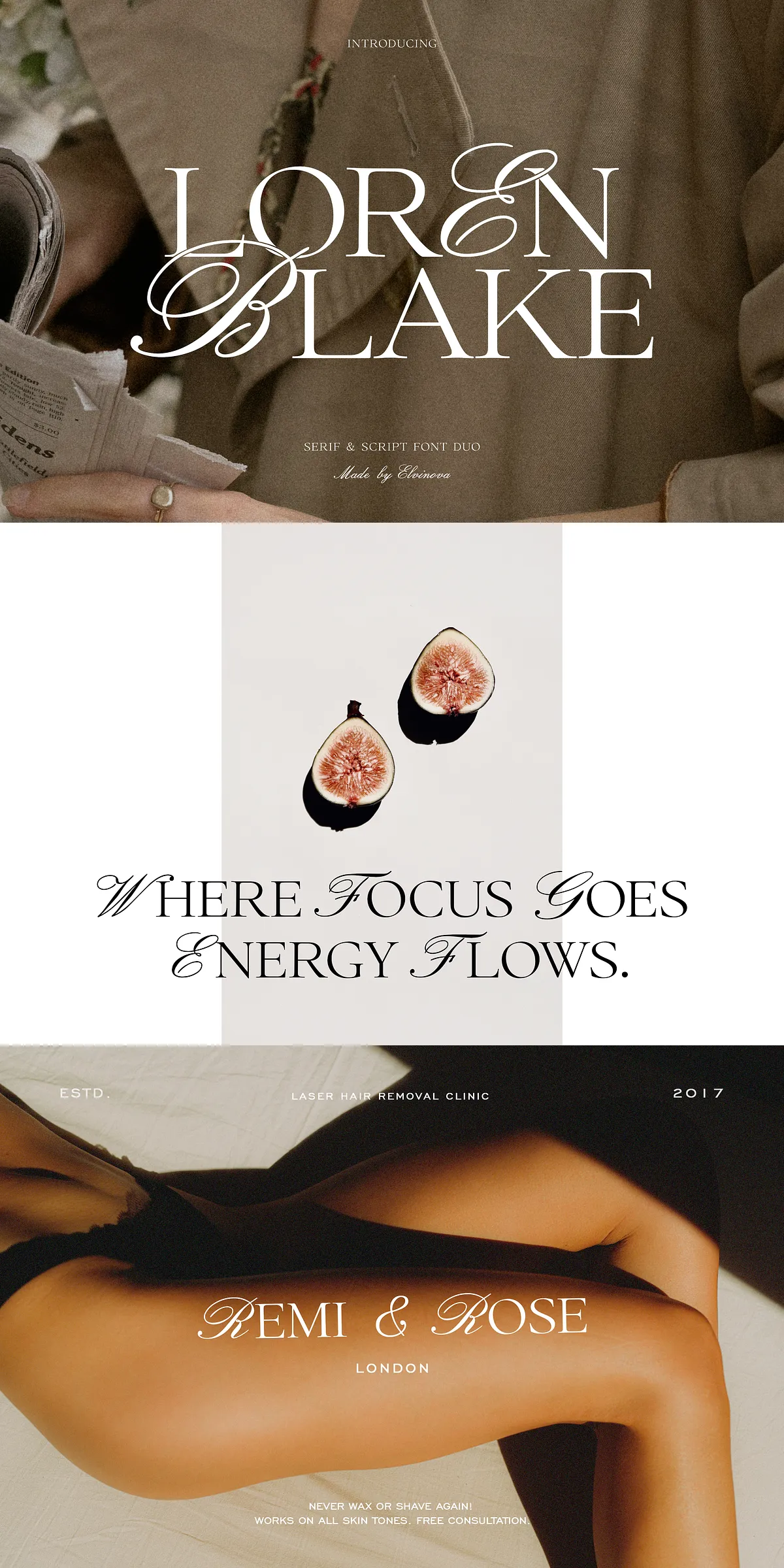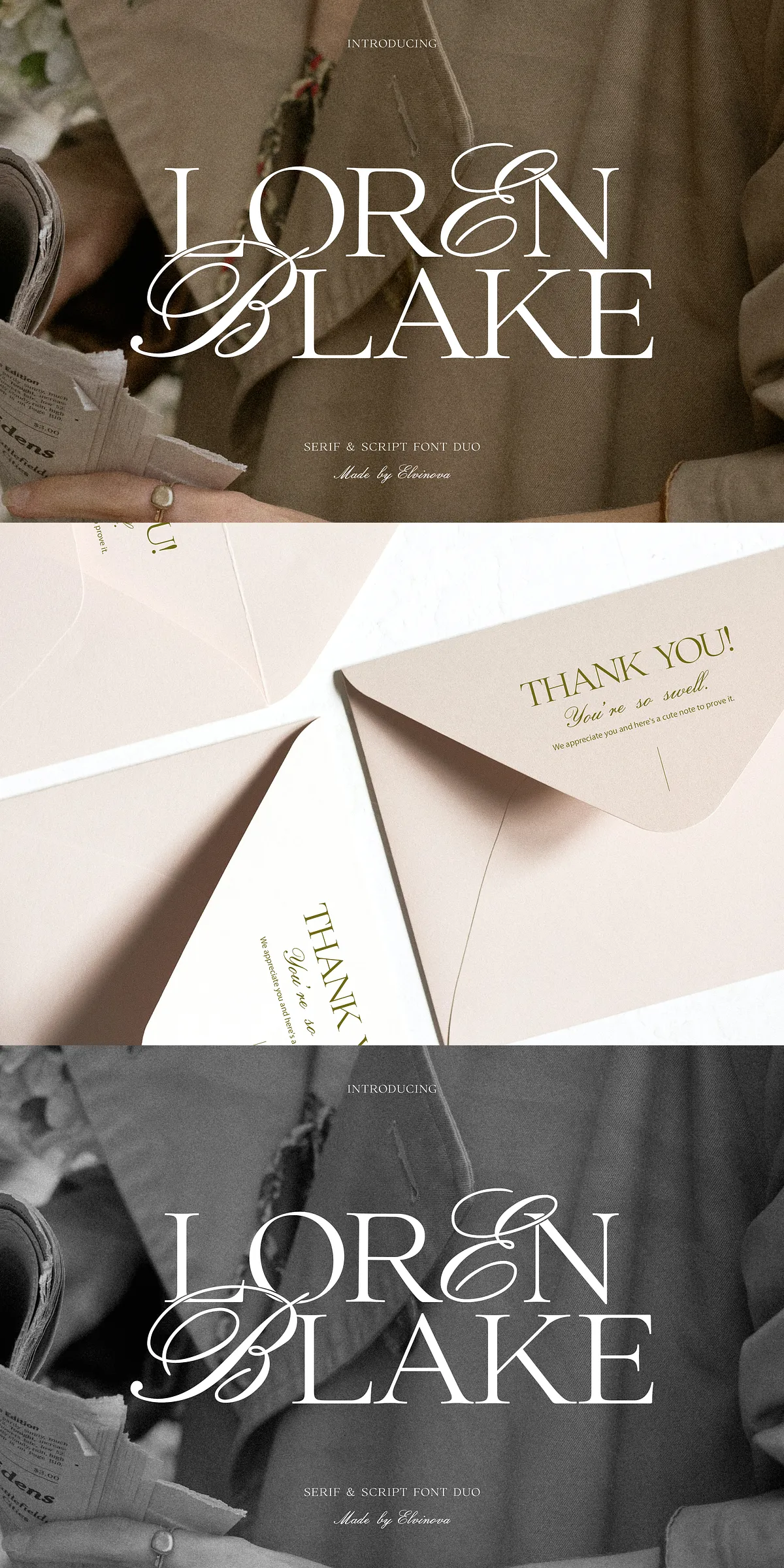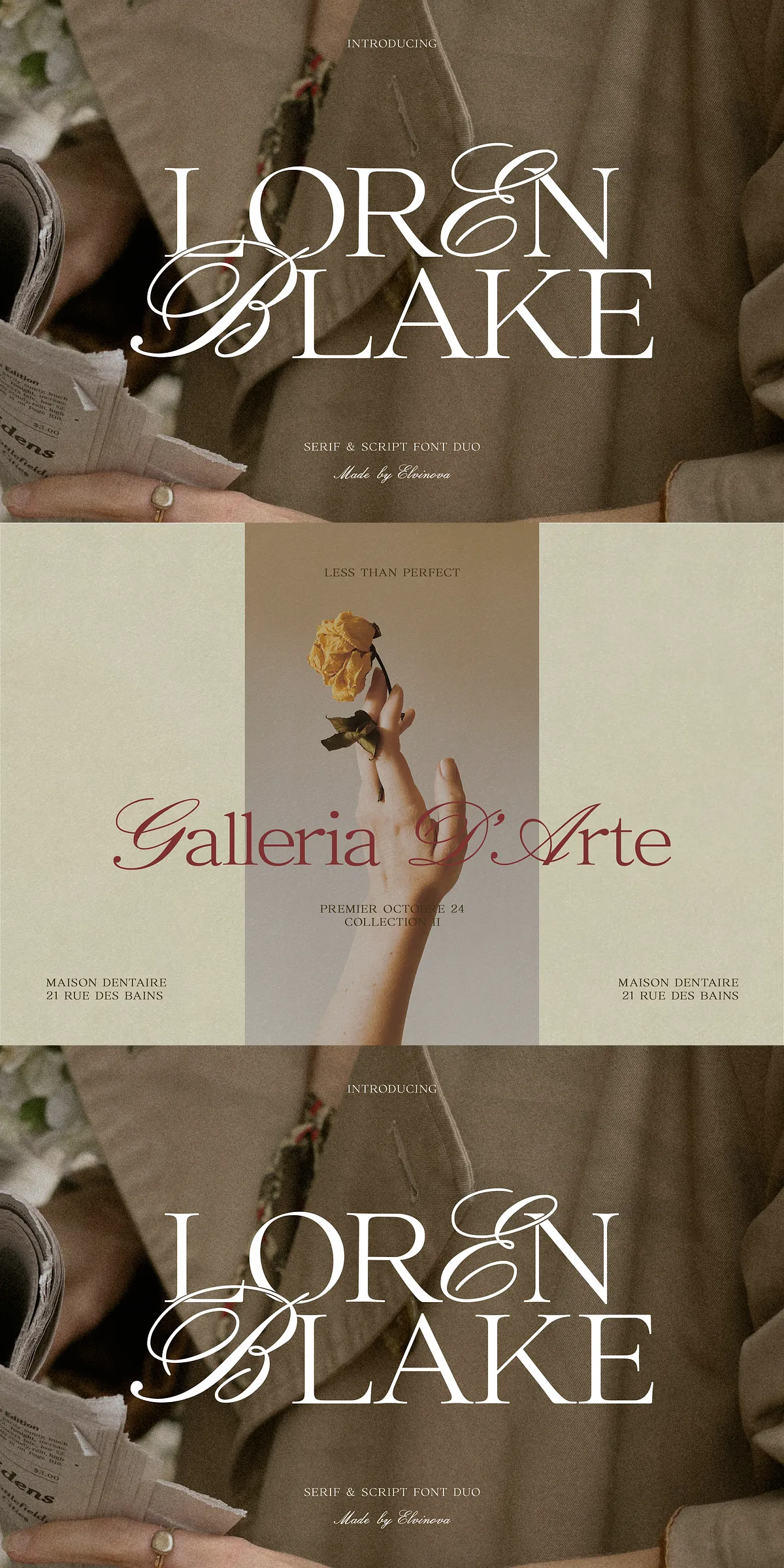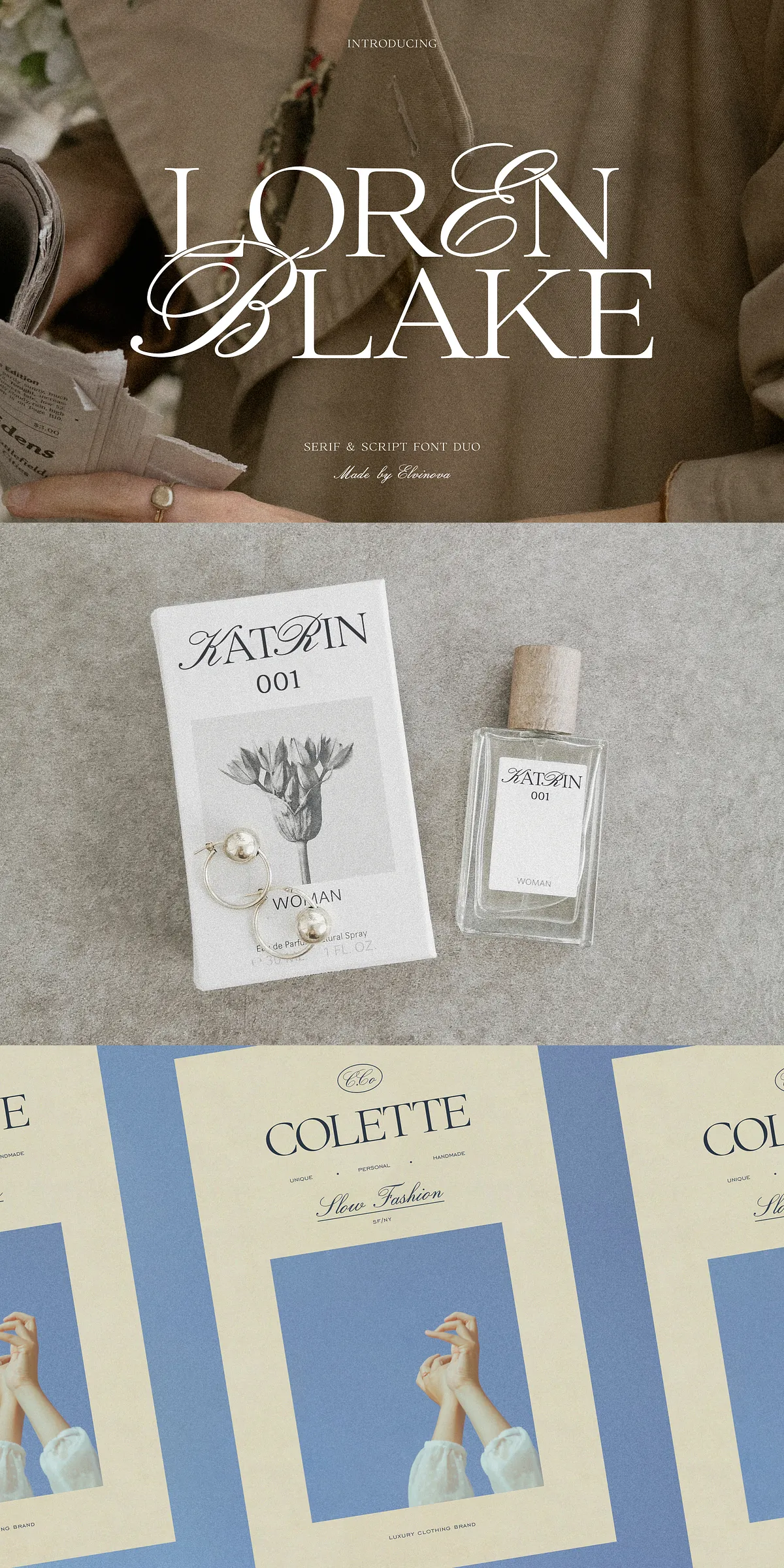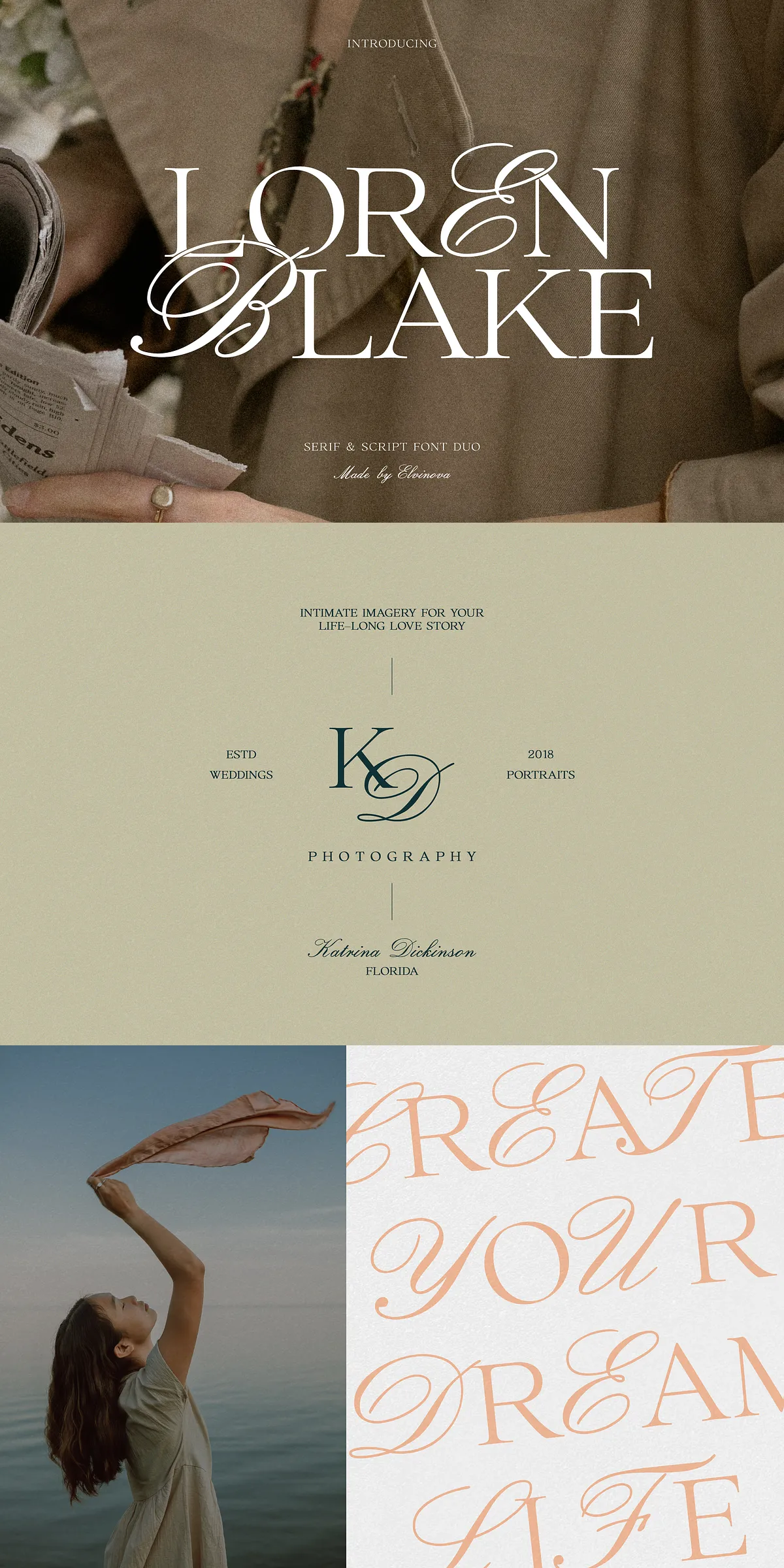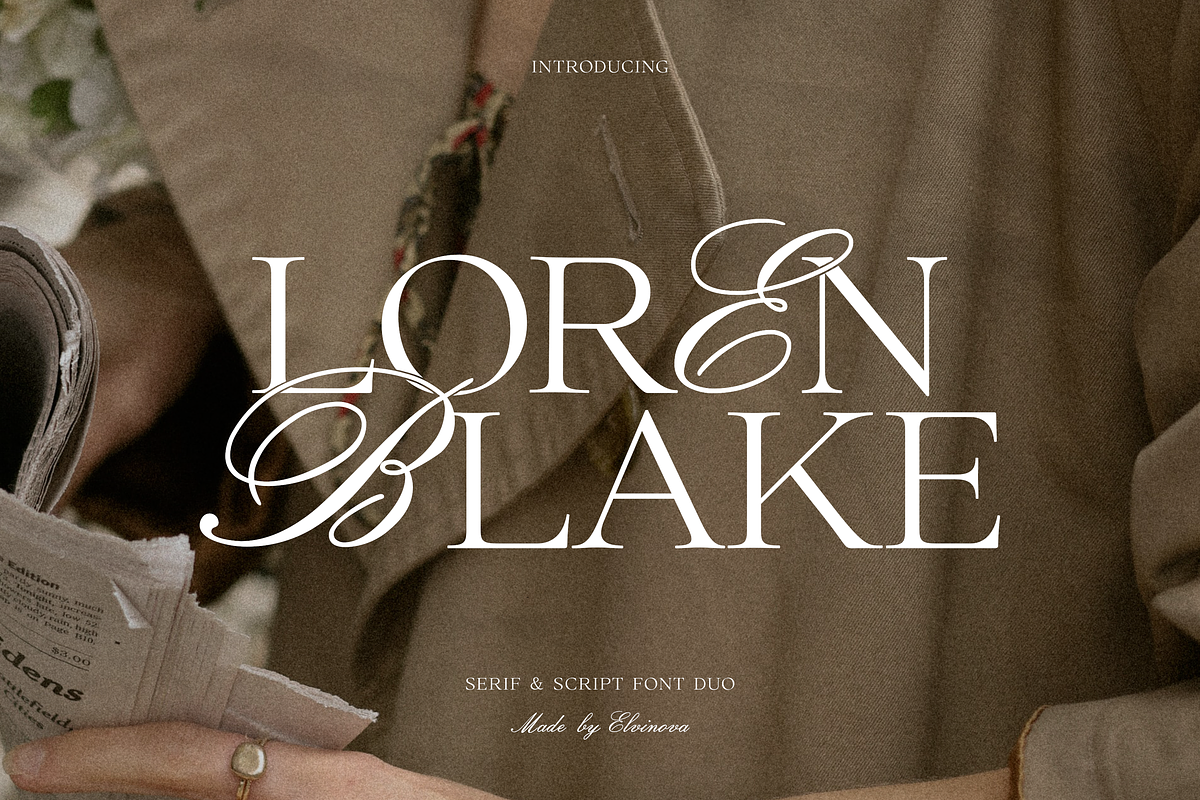
Loren Blake | Font Duo
Experience the fusion of tradition and modernity with Loren Blake — a premium serif and script font duo that redefines elegance in digital and print design. This is not just a typeface. It’s a statement of sophistication, crafted for creators who demand both timeless charm and contemporary versatility. Whether you’re designing luxury wedding invitations, building a high-end brand identity, launching a product line, or crafting compelling website headers, Loren Blake delivers a powerful visual presence with refined grace.
Unveil the Duo: Three Versatile Fonts in One Package
Loren Blake isn’t a single font — it’s a complete visual language composed of three distinct yet harmonious typefaces:
• Loren Blake Serif (OTF) — A timeless, classical serif with balanced proportions, strong serifs, and a dignified presence. Its clean, structured form makes it ideal for long-form text, formal documents, and professional headers.
• Loren Blake Script (OTF) — A flowing, handcrafted script with large, prominent capital letters that command attention. Each stroke dances with effortless fluidity, evoking the grace of calligraphy and the intimacy of handwritten notes.
• Loren Blake Hybrid (OTF) — The perfect bridge between the two. This advanced font combines the strong structure of the serif with the expressive flow of the script, enabling seamless transitions and dynamic typographic compositions.
Together, these three fonts give you unparalleled creative control. Use them independently or combine them for signature layouts that are instantly recognizable and deeply impactful.
Design with Distinction: Features That Elevate Your Work
Loren Blake isn’t just beautiful — it’s engineered for excellence. Every detail is designed with professional creatives in mind:
• Large, Prominent Capitals — The bold uppercase letters in the script variant create a striking visual hierarchy, making headlines and titles unforgettable.
• Advanced Kerning & Spacing — Smart letter spacing adjustments allow for dynamic layout control. Play with spacing to add tension, elegance, or dramatic impact to your design.
• Full Character Set — Includes uppercase and lowercase letters, numerals, punctuation, ligatures, and multilingual support, ensuring your content looks flawless across languages.
Diverse Applications: From Ceremony to Commerce
Loren Blake’s versatility makes it a powerhouse across industries and design disciplines. Let it define your aesthetic across these use cases:
• Wedding Invitations & Stationery — Create timeless, romantic designs that reflect the elegance of the occasion. The script variant adds emotional depth, while the hybrid enables dynamic layouts.
• Brand Identity & Logo Design — Ideal for luxury brands, boutique fashion houses, high-end cosmetics, and artisanal food labels seeking a refined, memorable voice.
• Product Packaging & Branding — Elevate your packaging with a font that conveys quality, craftsmanship, and attention to detail.
• Web & App Typography — Use the serif or hybrid variant for impactful headings, navigation, and call-to-action elements that stand out without losing readability.
• Poster Art & Print Media — Perfect for event flyers, book covers, gallery prints, and editorial design that demands immediate visual impact.
Step Into Timeless Elegance
In a world flooded with generic, overused fonts, Loren Blake stands apart. It’s bold yet graceful, classic yet innovative, structured yet deeply expressive. It doesn’t follow trends — it sets them.